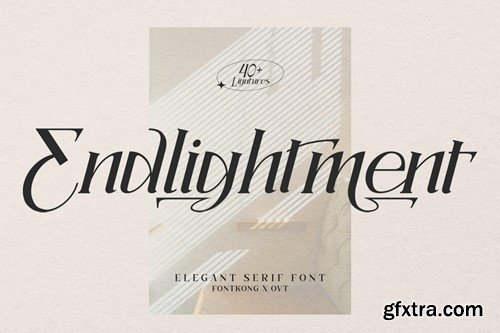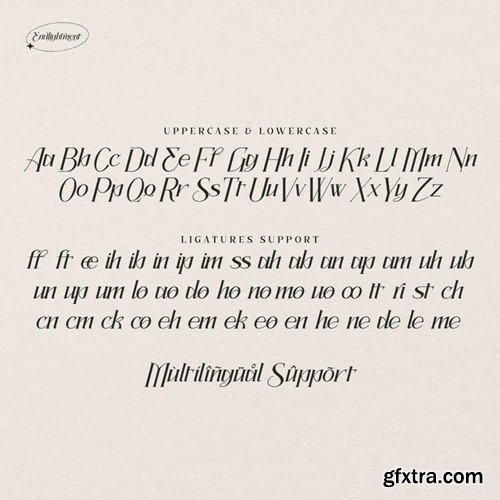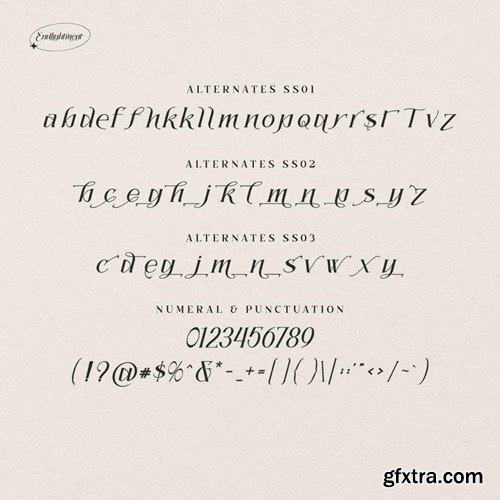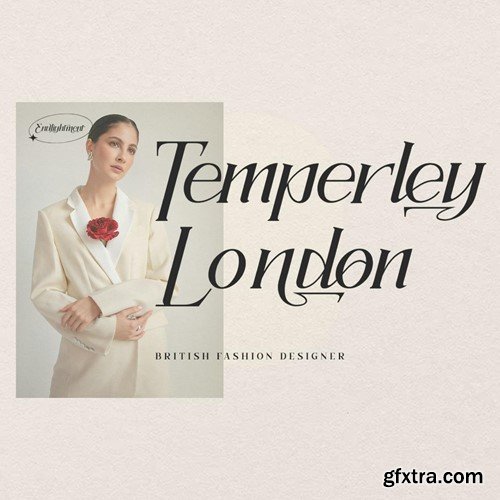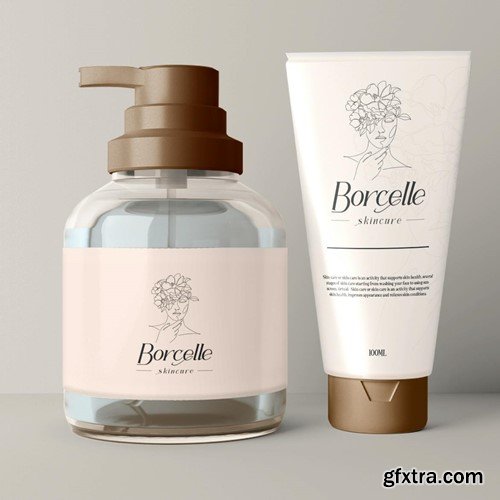
Endlightment - 精致衬线字体 UKM8XTM
Endlightment - Elegant Serif Font Introduce a touch of refined sophistication to your creative projects with "Endlightment," an elegant serif font designed to enhance any composition with its classic charm. Perfect for those seeking a typeface that blends traditional aesthetics with contemporary finesse, Endlightment is ideal for high-end branding, luxurious editorial content, and graceful advertising. You will receive the font files in TTF, OTF, and WOFF formats Endlightment's design boasts beautiful, clean lines and carefully crafted serifs, providing a smooth and readable text experience. This font excels in applications that require a formal or upscale look, such as wedding invitations, corporate communications, and stylish magazines. It includes a comprehensive range of weights, italics, numerals, punctuation, and extensive multilingual support, accommodating a diverse array of design needs and language requirements. Whether you're designing a sophisticated logo, preparing a chic publication, or crafting compelling promotional materials, Endlightment adds a layer of elegance and style that is both timeless and impactful. Its unique blend of classic and modern elements ensures your projects stand out with a polished and distinguished appearance. Now available on Envato Elements and Creative Market, Endlightment is your essential serif font for adding a luxurious and elegant flair to your design arsenal.